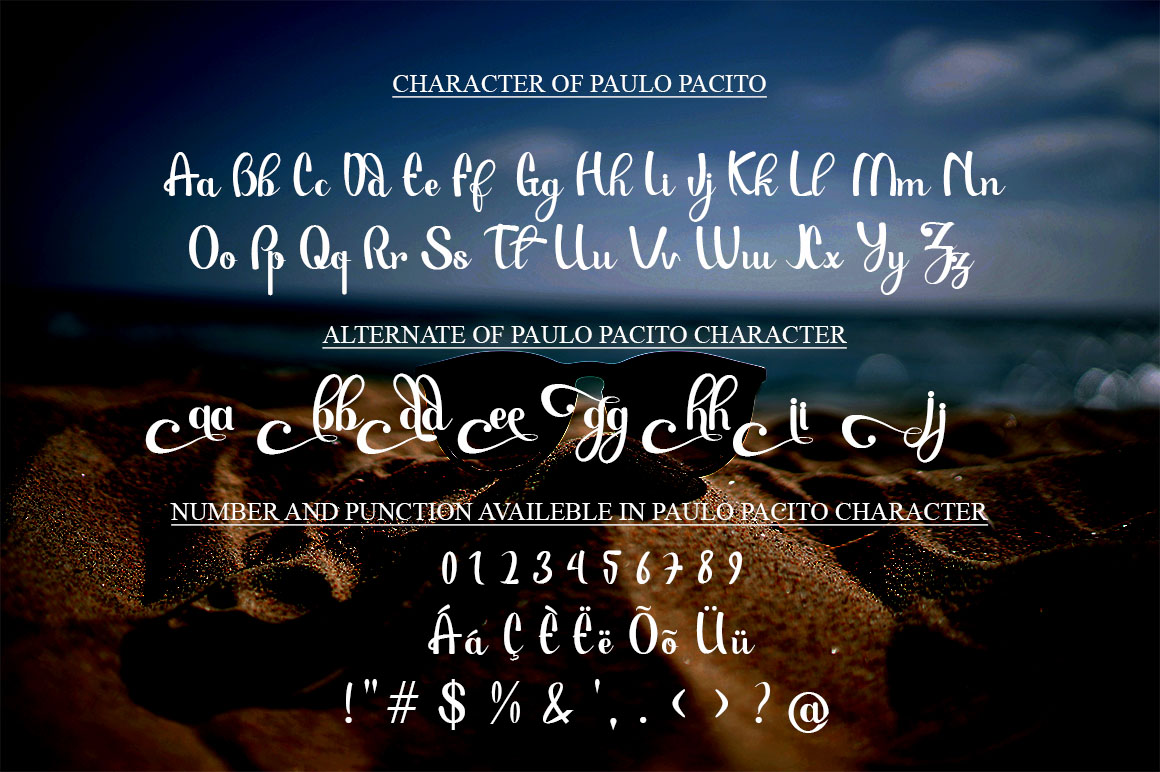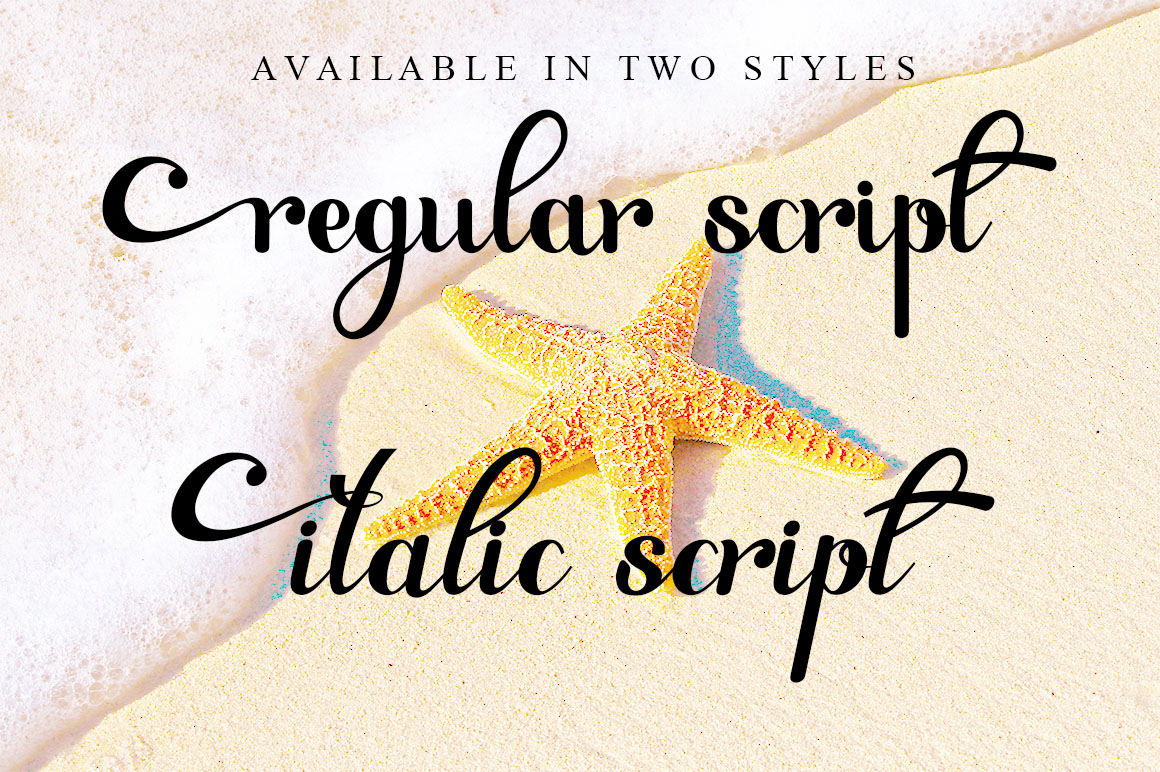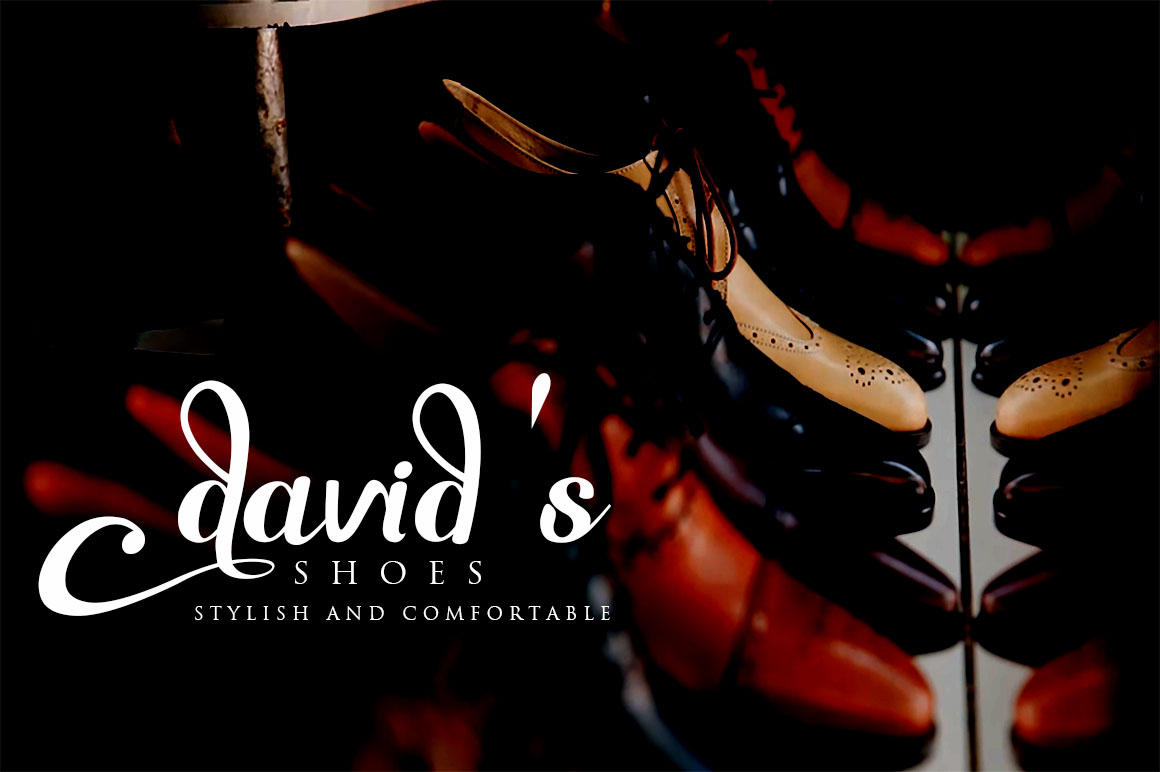
Introduction to Paulo Pacito Font
Have you ever been stuck on a creative project, unable to find the perfect font to bring your vision to life? I know I have. There’s nothing quite like the feeling of finally stumbling upon the perfect design resource, and that’s exactly what I experienced when I discovered the beautiful Paulo Pacito Font.
With its romantic and fresh calligraphic style, Paulo Pacito Font is the perfect choice for designers looking to add a touch of elegance and sophistication to their work. Its beautiful curvature and contrast make it accessible for both modern and retro designs, and its high quality is evident in every detail. Whether you’re working on a creative project that requires a transparent background or simply need a font that will stand out from the crowd, Paulo Pacito Font is an invaluable resource for designers.
Key Features of Paulo Pacito Font
- High-quality design resource with a transparent background, perfect for creative projects.
- With its high resolution and crisp typography, this font is ideal for use in print and digital designs, including logos, posters, and business cards.
- The font’s unique characteristics, such as its elegant and sophisticated style, make it a great addition to any design project.
- Paulo Pacito Font is a versatile design resource that can be used for a wide range of creative projects, from branding and marketing materials to editorial and publishing projects.
Honest Review: Paulo Pacito Font
I recently stumbled upon the Paulo Pacito Font, and I must say it’s a great addition to any designer’s toolkit. This free download is perfect for designers who are looking for a high-quality font to use in their creative projects.
What works well: ✨ The font has a beautiful, elegant design that’s perfect for luxury branding and high-end creative projects. The transparent background feature is also a great bonus, allowing designers to easily place the text over any image or background.
Some of the key features of the Paulo Pacito Font include:
- High-quality design that’s perfect for luxury branding
- Transparent background feature for easy text placement
- Great for creative projects, such as logo design and branding
However, there are a few limitations to consider: ⚠️ The font only comes in a single weight, which may limit its versatility in certain design projects. Additionally, the font may not be suitable for text-heavy projects, as it can be quite ornate and may be difficult to read in certain contexts.
Overall, I’m really impressed with the Paulo Pacito Font. It’s a great resource for designers who are looking for a high-quality font to use in their creative projects. With its elegant design and transparent background feature, it’s a must-have for any designer’s toolkit.
Tips for Getting the Most Out of Paulo Pacito Font
For optimal results, experiment with different layering options, font sizes, and colors to achieve a unique look. You can also use Paulo Pacito Font in combination with other design resources to create a visually appealing design. As a free download, this font is an excellent addition to your design toolkit.
Paulo Pacito Font is ideal for creative projects that require a high-quality, unique font. Some common use cases include designing business cards, brochures, and websites. This font’s transparent background and high-quality design make it an excellent choice for designers seeking a professional look.
Q: Is the Paulo Pacito Font a high-quality font?
Yes, the Paulo Pacito Font is a high-quality design resource that features clear, crisp typography. It’s an excellent choice for designers who require a reliable and visually appealing font for their creative projects.